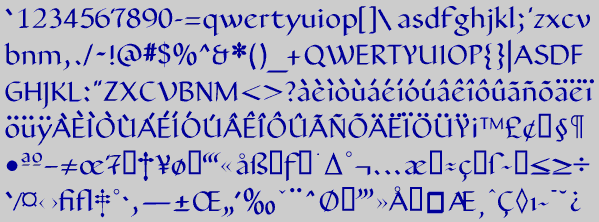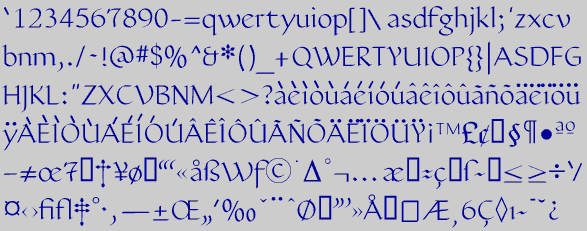
I constructed a number of calligraphic faces using the "Expand Strokes" feature in Fontographer. (I am giving away secrets here.) Instead of constructing the entire path of the letter, one constructs a line which a calligraphic pen will follow. Then one sets the size and angle of the pen, and from that line a calligraphic font appears. Of course, the quality of the end product depends on the quality of the original line--garbage in, garbage out.
Hermainita is a calligraphic typeface in the Carolingina or Humanistic style. The Carolingian style replaced the uncial style and preceded the Gothic styles. It reemerged during the Renaissance as the Humanistic style and formed the model for many of our modern letters.
Because it is very readable at small point sizes, I decided that Hermainita was worth further development, which led to Yngreena.